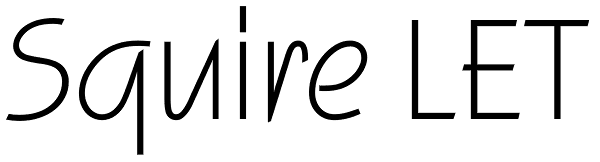
Squire
The letters of this unusual sans serif typeface offer a blend of formal and informal construction. Legible in large and small sizes, Squire is versatile across a wide variety of advertising applications. It's a great choice for work such as greeting...
Squire ExtraBold LET
Squire LET